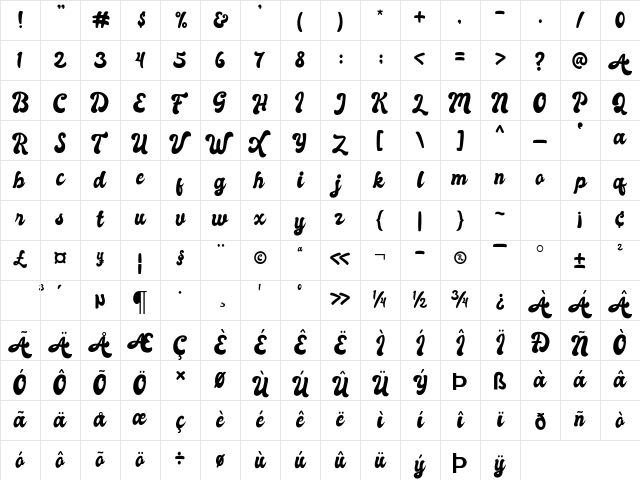
Autolova Regular
Designer: Rudhi Sasmito 2018
Design Context for Autolova
Autolova is a composed and adaptable typeface that performs quietly and consistently across a wide range of design contexts.